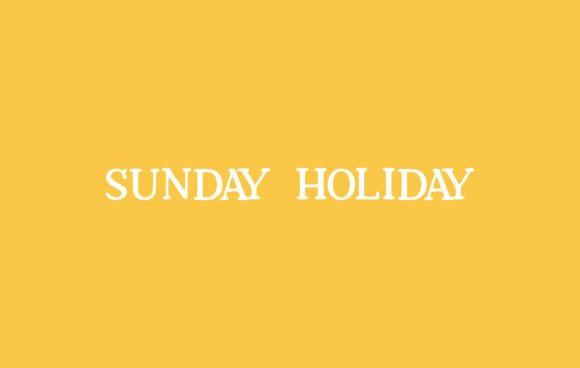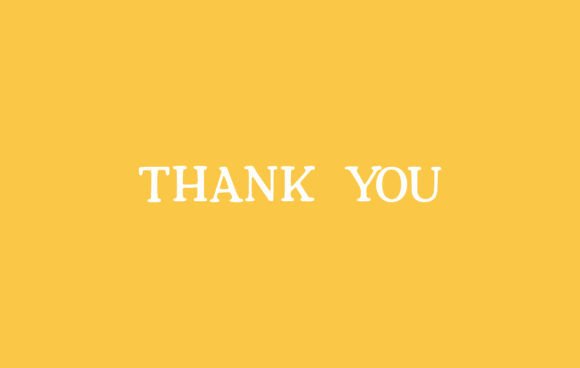
Introducing Adelynn Font: The Ultimate Handwritten Font for Creative Projects
Are you tired of using the same old fonts for your creative projects? Look no further than Adelynn Font, an authentic handwritten font with a romantic touch that’s sure to take your designs to the next level. Expertly designed to be a true favorite among designers and crafters, Adelynn Font is the perfect choice for anyone looking to add a personal touch to their work.
What Makes Adelynn Font So Special?
Adelynn Font is more than just a font – it’s an experience. With its unique blend of elegance and playfulness, this font is sure to capture the hearts of anyone who sees it. Here are just a few reasons why Adelynn Font stands out from the crowd:
- Authentic Handwritten Style: Adelynn Font is carefully crafted to mimic the look and feel of handwritten text, giving your designs a personal and human touch.
- Romantic Touch: With its flowing curves and delicate lines, Adelynn Font is perfect for creating romantic and whimsical designs that will leave a lasting impression.
- Legible and Versatile: Whether you’re using it as a title or body text, Adelynn Font is easy to read and looks great in a variety of contexts.
Adelynn Font is incredibly versatile, making it perfect for a wide range of design projects. Here are just a few ideas to get you started:
- Magazine Headlines: Add a touch of elegance and sophistication to your magazine headlines with Adelynn Font.
- Social Media Graphics: Stand out on social media with eye-catching graphics that feature Adelynn Font.
- Branding and Packaging: Use Adelynn Font to create a unique and memorable brand identity that will leave a lasting impression on your customers.
- Wedding Invitations: Add a romantic touch to your wedding invitations and save the dates with Adelynn Font.
- Cards and Stationery: Create beautiful and personalized cards and stationery with Adelynn Font.
Why Designers and Crafters Love Adelynn Font
Adelynn Font is quickly becoming a favorite among designers and crafters, and it’s easy to see why. Here are just a few reasons why:
- Easy to Use: Adelynn Font is incredibly easy to use, even for those who are new to designing with fonts.
- High-Quality Design: Adelynn Font is expertly designed to provide a high-quality look and feel that’s perfect for professional designs.
- Unique and Versatile: With its unique style and versatility, Adelynn Font is perfect for a wide range of design projects.
If you’re looking for a font that will take your creative projects to the next level, look no further than Adelynn Font. With its authentic handwritten style, romantic touch, and versatility, this font is sure to become a favorite among designers and crafters. Whether you’re creating magazine headlines, social media graphics, or wedding invitations, Adelynn Font is the perfect choice. So why wait? Download Adelynn Font today and start creating beautiful and memorable designs!